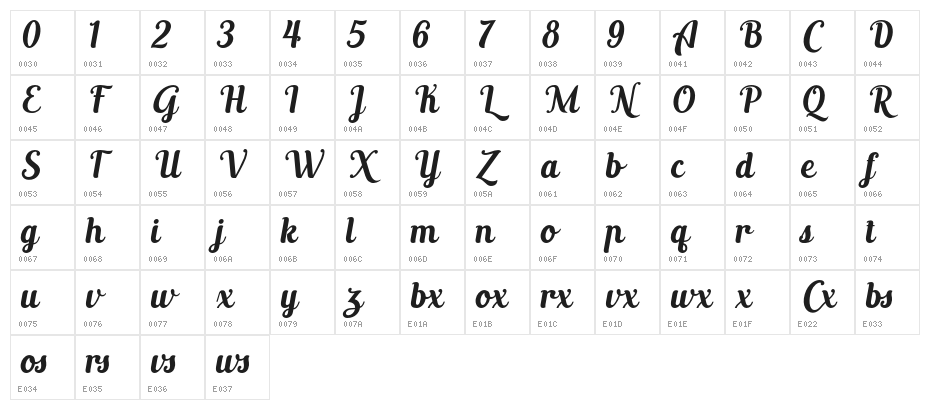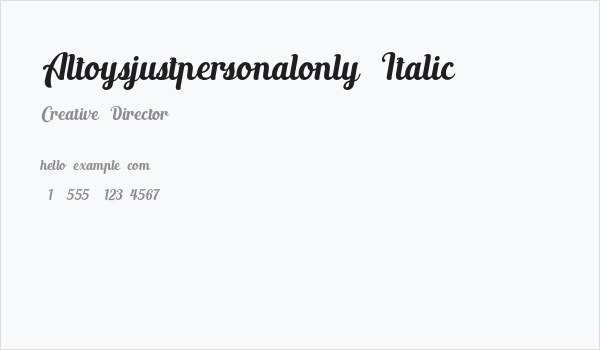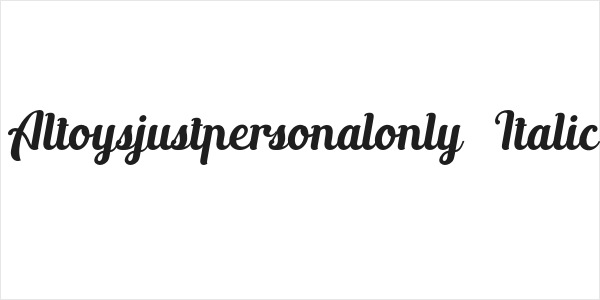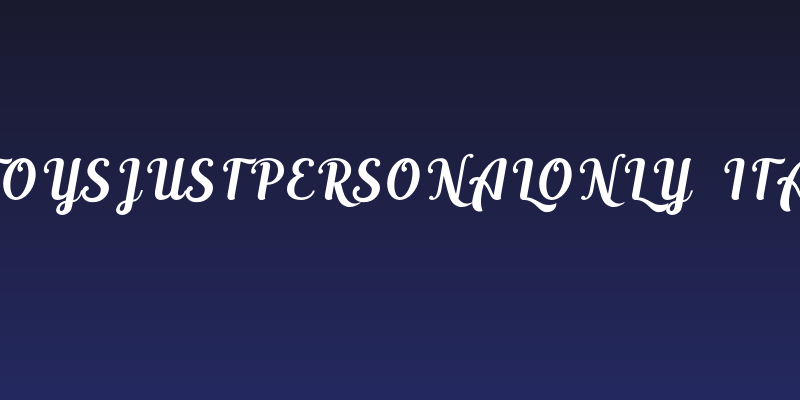
Altoysjustpersonalonly-Italic Font
Altoysjustpersonalonly-Italic Description
This font features a flowing, cursive style with elegant, sweeping curves and a slight slant, giving it a sophisticated and graceful appearance. The uppercase letters are bold and prominent, while the lowercase letters maintain a consistent flow, enhancing readability. The numerals are distinct and well-balanced, complementing the overall aesthetic. The font's design is both classic and modern, making it versatile for various applications. Its smooth transitions and consistent stroke width add to its legibility and charm.
| Overall Style | Elegant, Classic |
| Use Case | Logos, Invitations, Decorative Text |
| Proposed Projects | Ideal for wedding invitations, greeting cards, branding, and elegant signage. |